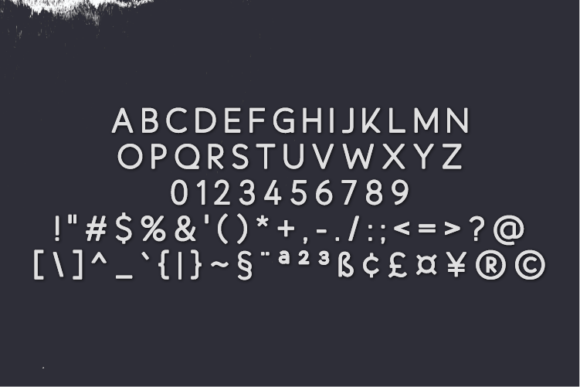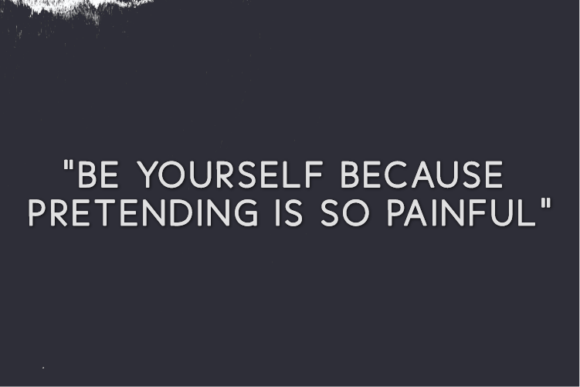
Introducing Downtown Font: Elevate Your Designs with Modern Elegance
In the world of typography, a well-crafted font can make all the difference in elevating your designs to the next level. If you’re a designer, crafter, or simply a creative enthusiast, you’re likely always on the lookout for the perfect font to bring your projects to life. Look no further than Downtown Font, a modern and elegant all-caps sans serif font that’s sure to impress.
What is Downtown Font?
Downtown Font is a sleek and sophisticated font designed with smooth and clean lines, accented with just a touch of contrast. This versatile style makes it an ideal choice for a wide range of creative applications, from logos and branding to web headings and beyond. Whether you’re working on a professional project or a personal passion project, Downtown Font is the perfect addition to your typographic toolkit.
Key Features of Downtown Font
- Modern and Elegant Design: Downtown Font boasts a contemporary and refined aesthetic that’s sure to turn heads. Its all-caps sans serif design makes it perfect for headlines, titles, and emphasis.
- Smooth and Clean Lines: The font’s smooth and clean lines ensure that your text looks crisp and professional, even at smaller sizes.
- Versatile Style: Downtown Font’s subtle contrast and elegant lines make it suitable for a wide range of design applications, from minimalist to luxurious.
Why Choose Downtown Font?
So, what sets Downtown Font apart from other fonts on the market? Here are just a few reasons why designers and crafters are falling in love with this beautiful font:
- Unique and Memorable: Downtown Font’s distinctive design ensures that your text stands out from the crowd, making it perfect for logos, branding, and other applications where you want to make a lasting impression.
- Highly Legible: Despite its elegant design, Downtown Font remains highly legible, even at smaller sizes. This makes it perfect for body text, captions, and other applications where readability is key.
- Easy to Pair: Downtown Font’s neutral design makes it easy to pair with other fonts, allowing you to create stunning typographic combinations that elevate your designs.
Using Downtown Font in Your Designs
So, how can you use Downtown Font to elevate your designs? Here are just a few ideas to get you started:
- Logos and Branding: Downtown Font’s unique and memorable design makes it perfect for logos, business cards, and other branding materials.
- Web Headings: Add a touch of elegance to your website with Downtown Font, perfect for headings, titles, and emphasis.
- Print Materials: From brochures to posters, Downtown Font is a versatile choice for any print project.
- Crafting and DIY Projects: Add a professional touch to your crafting and DIY projects with Downtown Font, perfect for signs, labels, and more.
In conclusion, Downtown Font is a modern and elegant all-caps sans serif font that’s perfect for designers, crafters, and creative enthusiasts alike. With its smooth and clean lines, versatile style, and highly legible design, this font is sure to elevate your designs to the next level. Whether you’re working on a professional project or a personal passion project, Downtown Font is the perfect addition to your typographic toolkit.